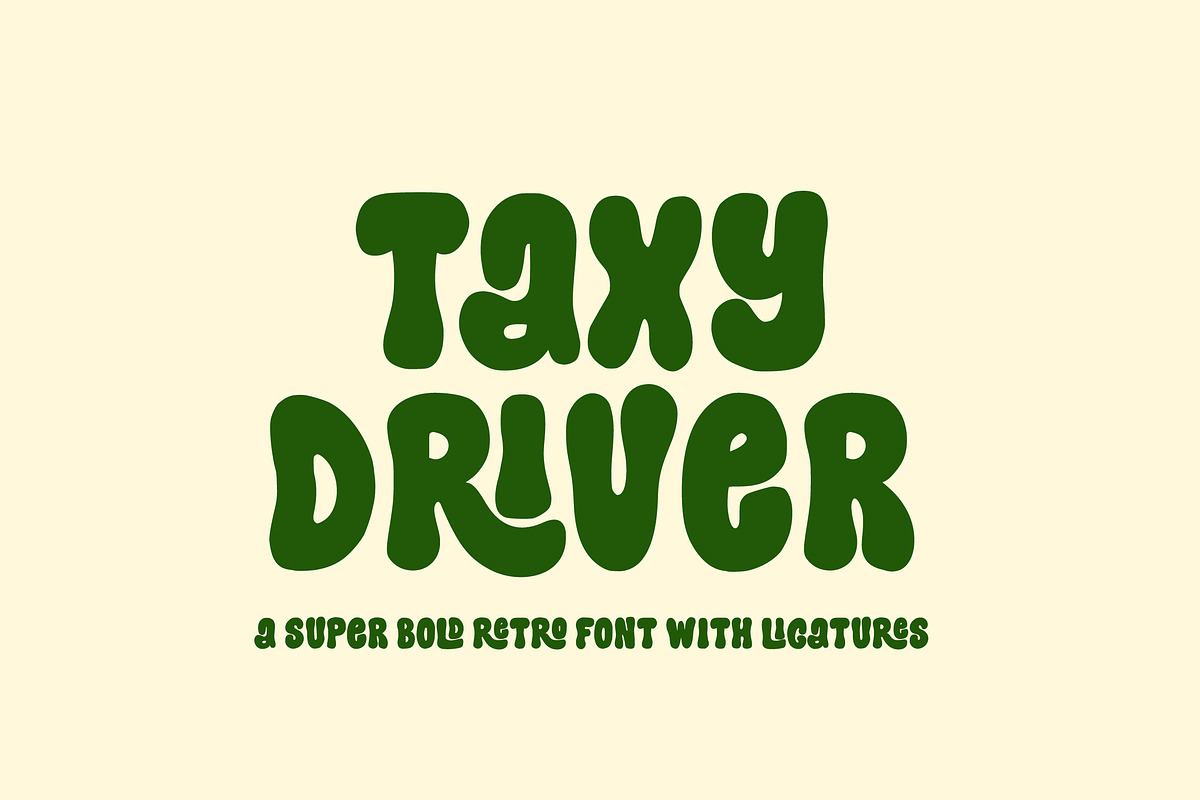
Taxy Driver Retro Bold Font Free Download is a powerful, vintage-inspired typeface that brings boldness and flair to any design. Please note: you must purchase this font for commercial use, but you can test it through a free download. With its retro charm and thick, eye-catching letterforms, Taxy Driver is ideal for posters, album covers, merchandise, and any project that needs a touch of classic attitude.
This font is all about making a statement—its bold structure ensures your message stands out loud and clear. Whether you're designing for digital or print, Taxy Driver Retro Bold Font Free Download offers that nostalgic punch with modern usability. Compatible with major design programs like Adobe Illustrator and Photoshop, it's easy to work with and fun to explore. Add this unique font to your toolkit today and bring your creative visions to life with vintage energy!